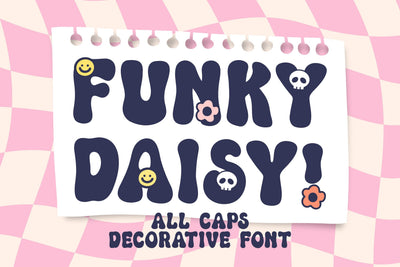
Funky Daisy - All-Caps Decorative Font
Funky Daisy is a fun retro handwritten decorative font. You can use this font in various projects - blog posts, logos, branding, digital planner, digital notes, invitations, greeting cards, planners, digital journal, photo albums, study notes, school notes, college notes, decorations and much more. Its authentic look and feel will add a personal and realistic feel to your designs.
The font includes uppercase, numbers, punctuations
(regular, smiley, flower, skull)